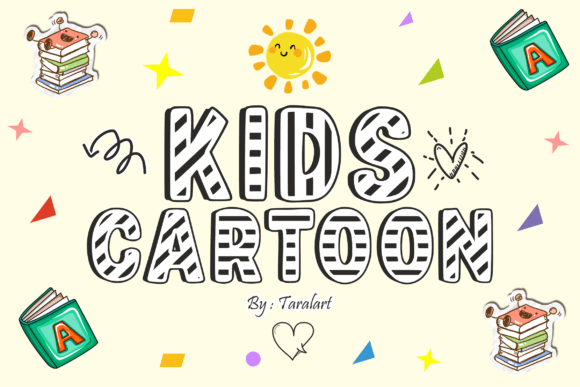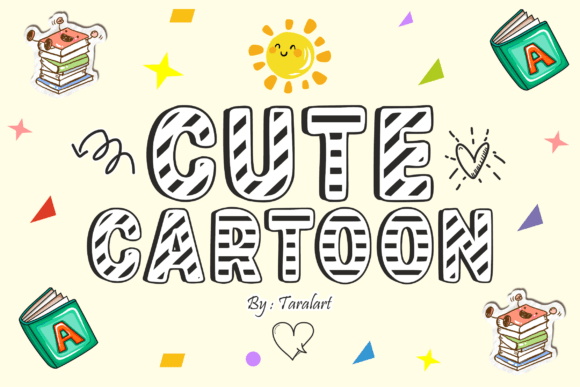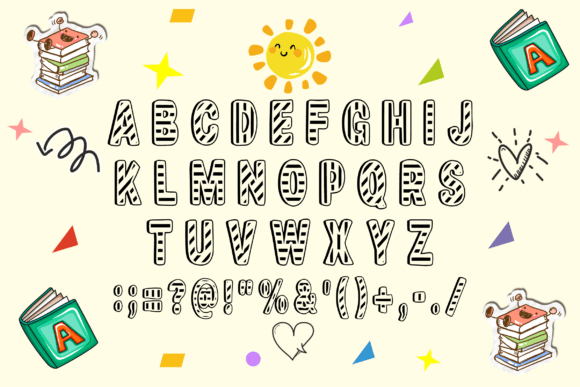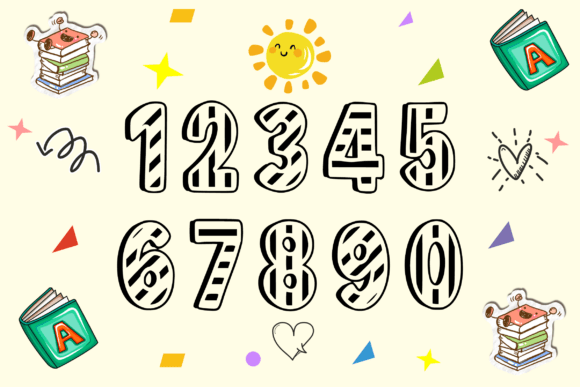
Discover the Delightful World of Children’s Comics with a Unique Font
A Personal Review of Children Comics Font
As a designer, I was thrilled to explore the features of Children Comics Font. Here’s what I love about it:
- ✨ Unique Character Set: Each character is designed to be instantly recognizable, making it perfect for children’s comics, animations, and merchandise.
- ✅ Easy to Read: The font is clear, legible, and highly readable, even at smaller font sizes.
While Children Comics Font is amazing, it’s not without its quirks:
- ⚠️ Limited Glyphs: The font might not have an extensive range of glyphs or special characters, which could limit its use in certain projects.
- 🤔 Kerning Issues: Some users might experience kerning issues when using the font at very large or very small sizes.
The Designer Inspiration Behind Children Comics Font
The story behind Children Comics Font is one of creativity and passion. The font’s designer was inspired by the colorful world of children’s comics and aimed to create a typeface that would bring joy and imagination to designers and readers alike. With a focus on playfulness and approachability, the font was crafted to evoke a sense of childhood wonder.
| Font Name | Children Comics Font |
| What type of projects is Children Comics Font best suited for? | Children Comics Font is ideal for children’s comics, animations, merchandise like t-shirts and mugs, and any project that requires a playful, whimsical touch. |
| Is Children Comics Font available in different weights or styles? | Currently, Children Comics Font is available in a single weight. However, the font’s design allows for versatility and creativity, making it easy to experiment with different styles. |